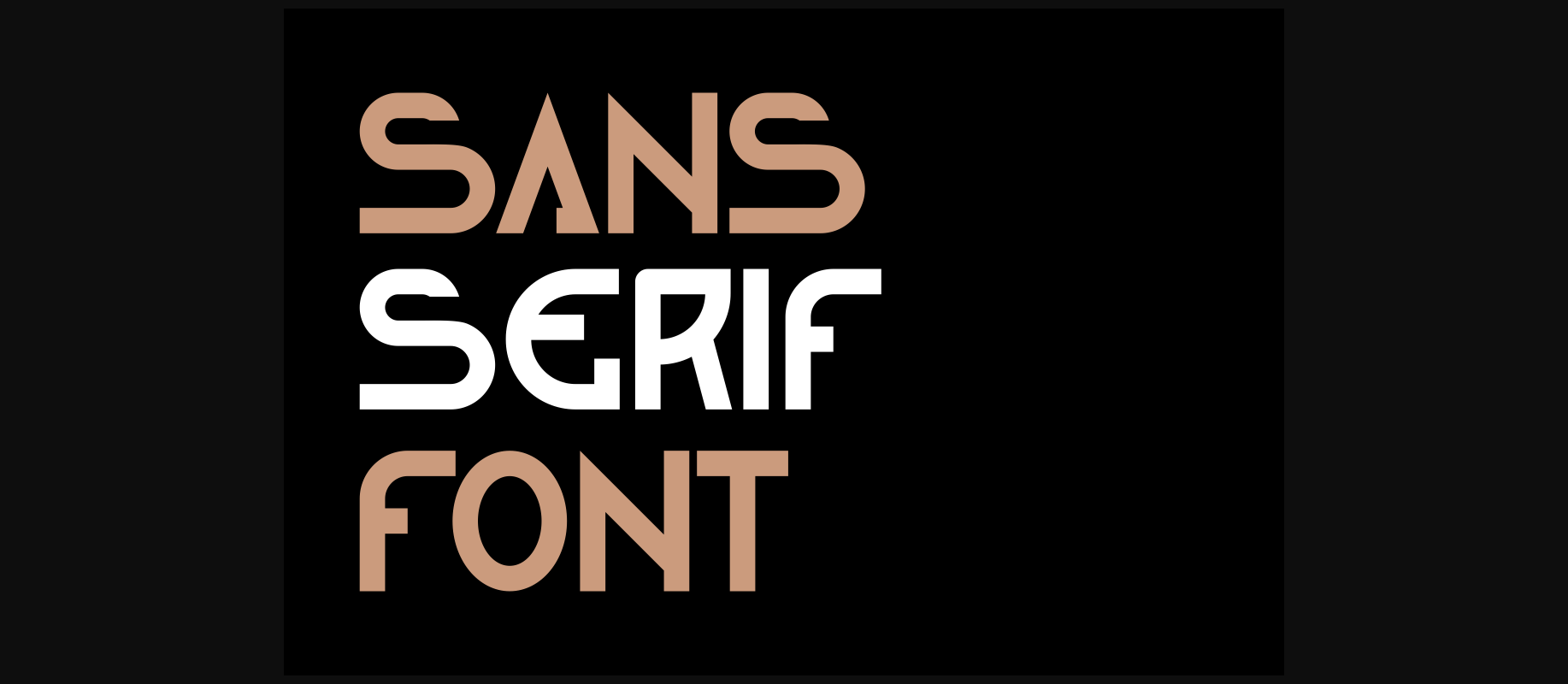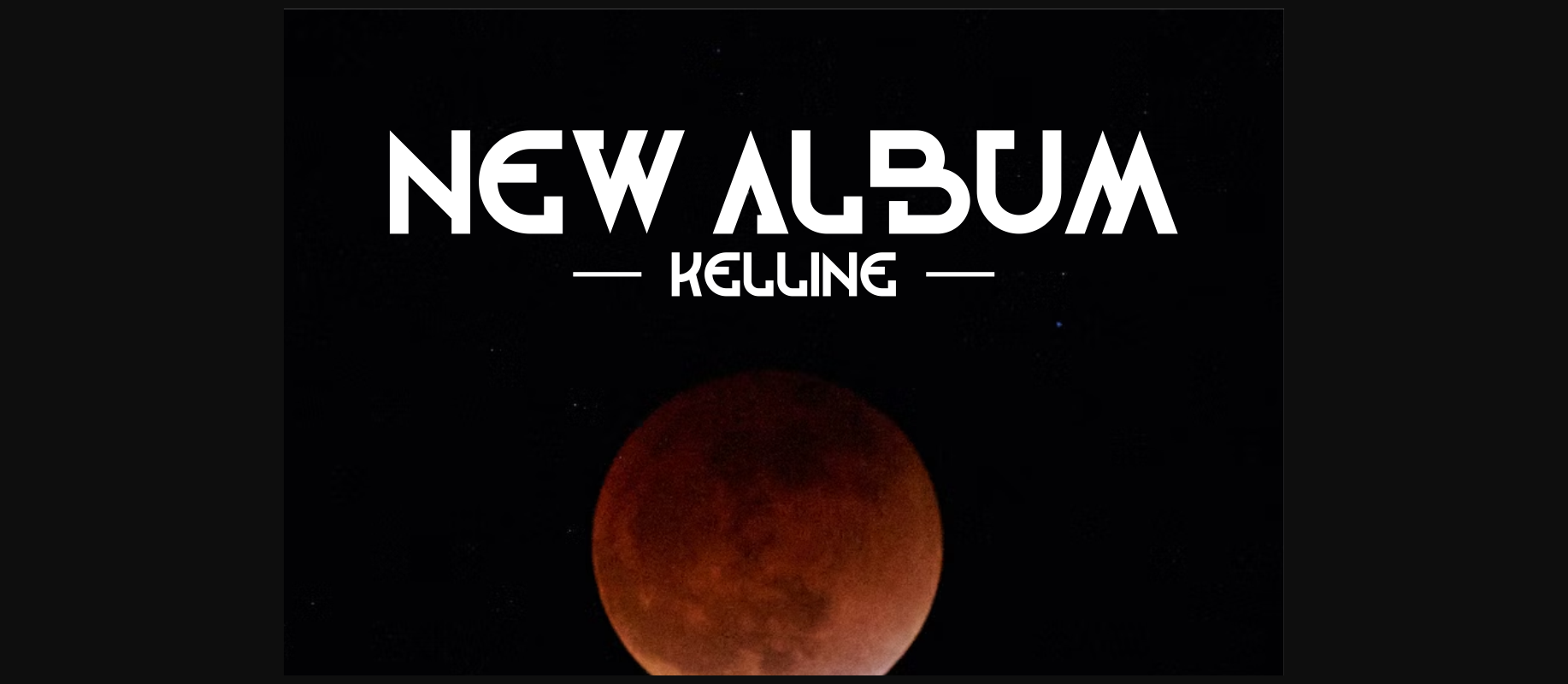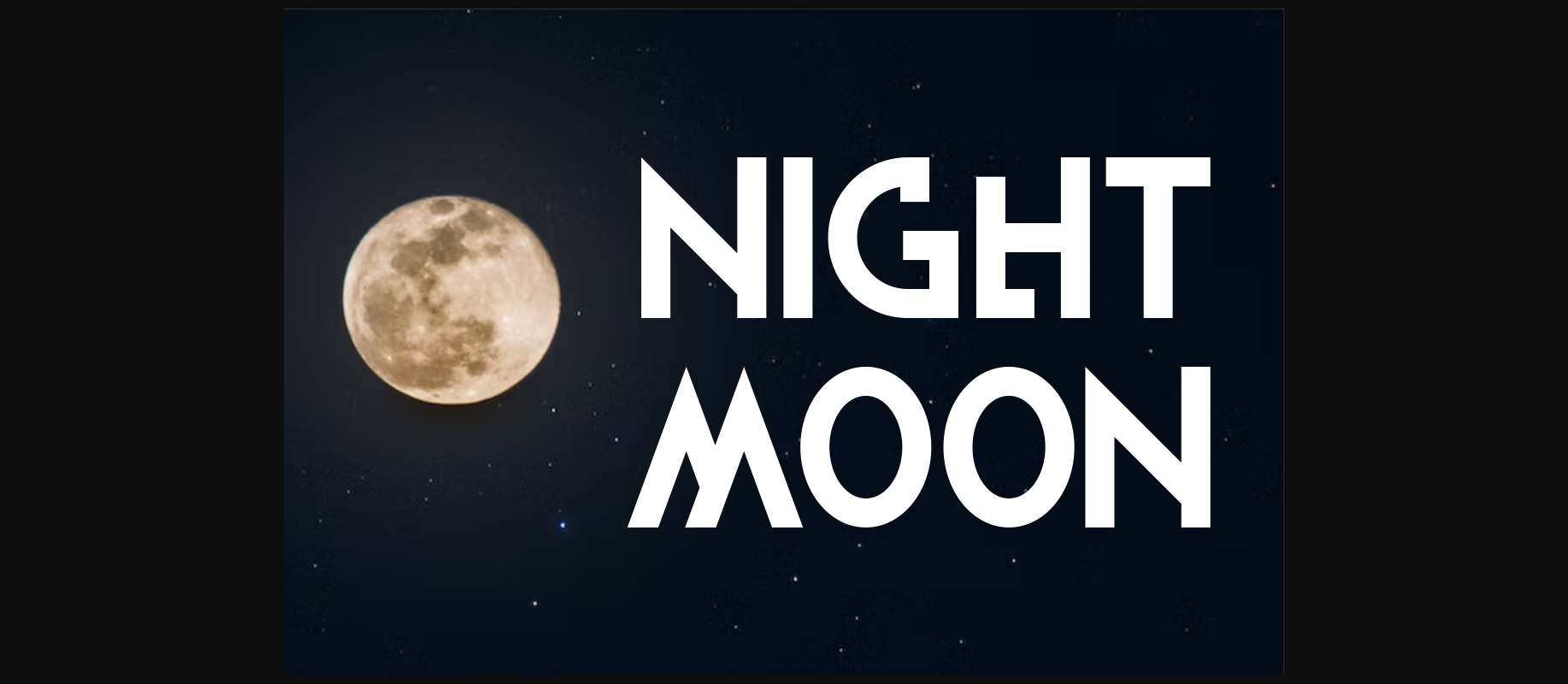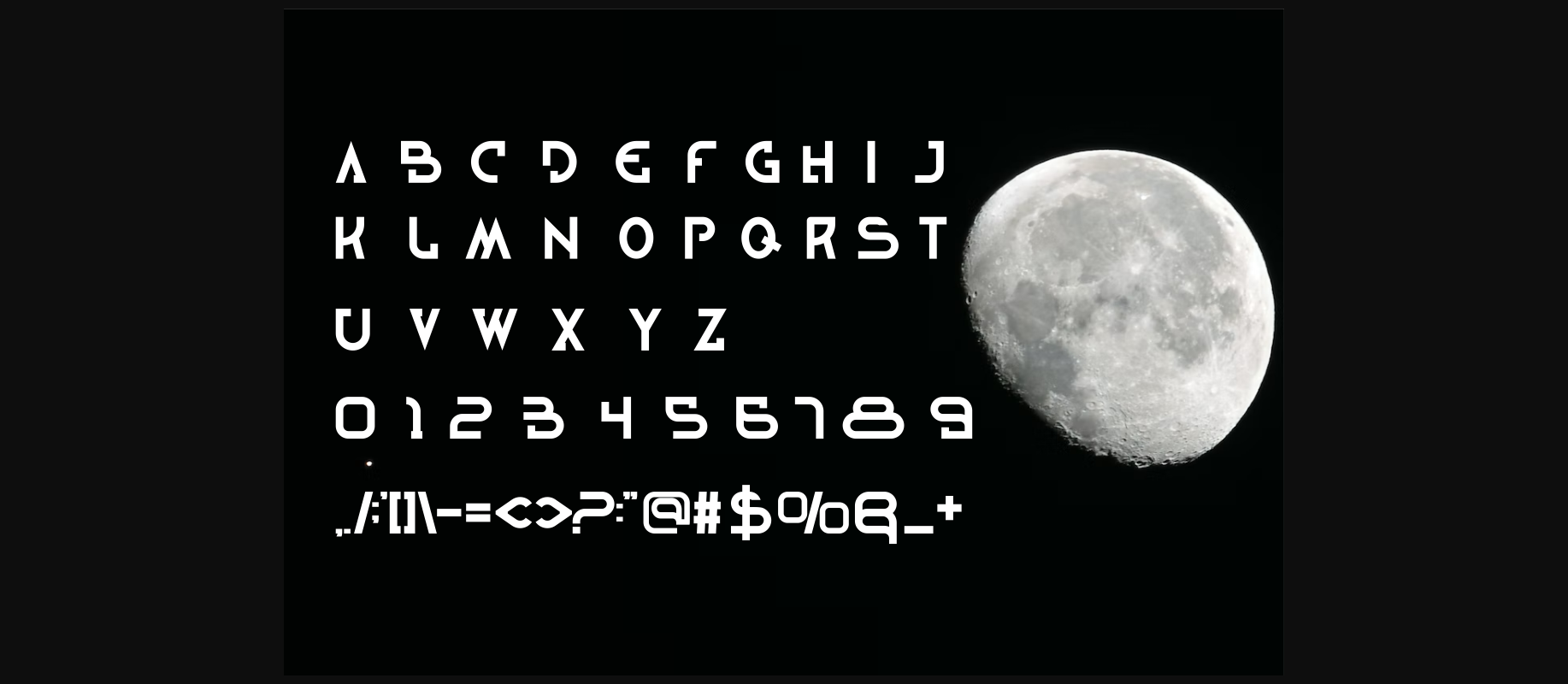
About Dramon Font
Dramon is a unique decorative font that feels beautiful classy, elegant, and modern. This font is perfectly suited for a wide variety of projects, such as signature, stationery, logo, wedding, typography quotes, magazine or book covers, website headers, clothing, branding, packaging design, and more.